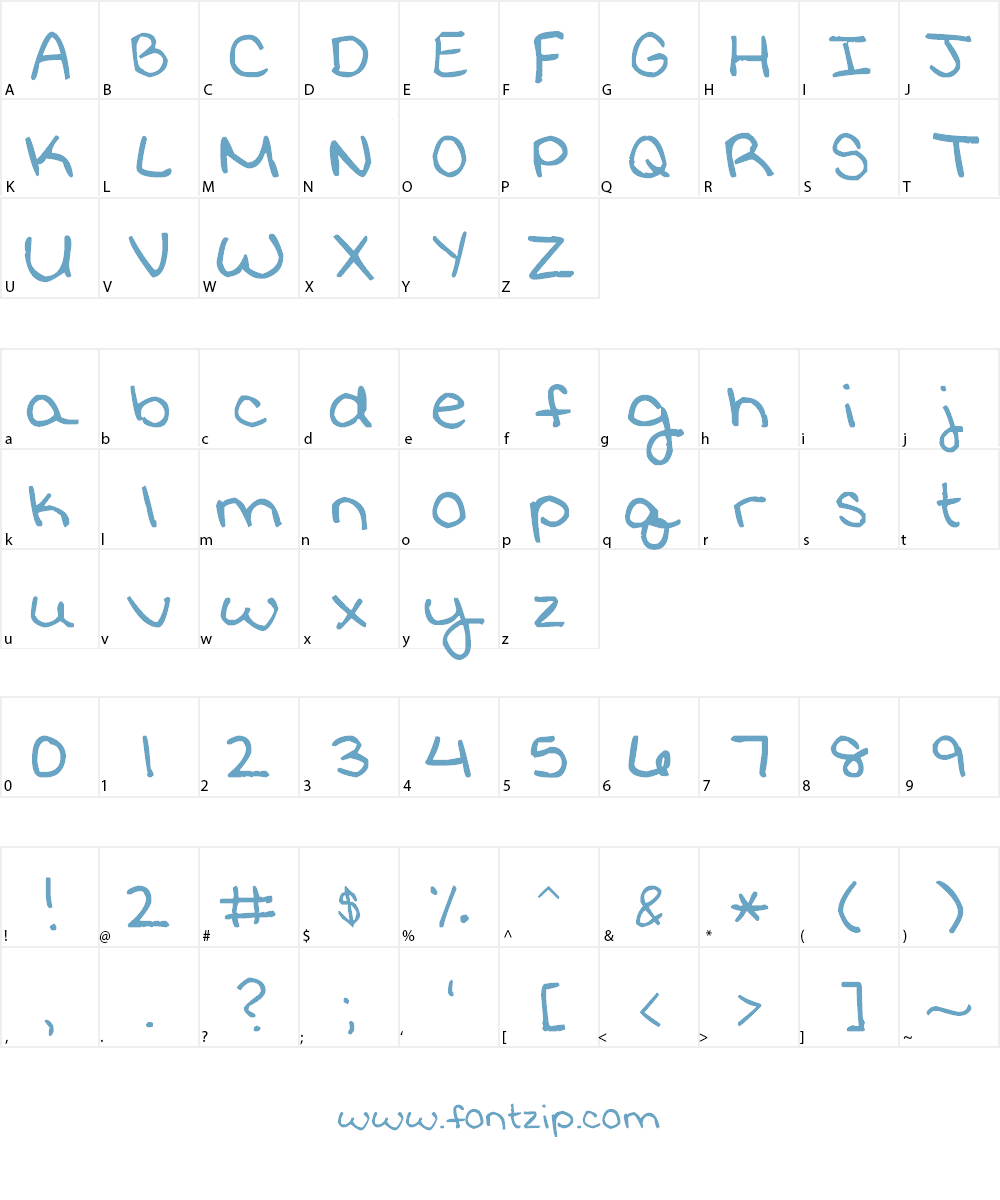
This is a font made after my own handwriting. It's rough and only lightly edited to preserve its hand-scrawled charm. This font support international characters, including Cyrillic!